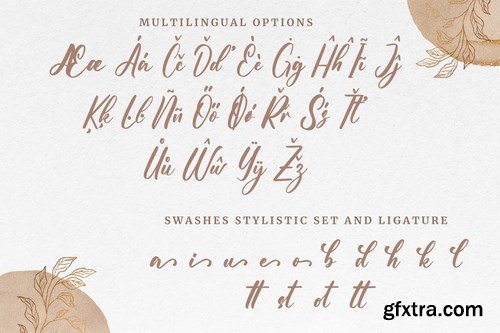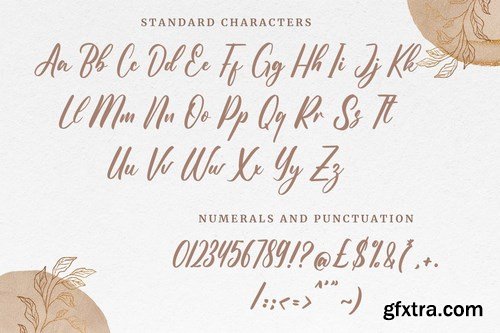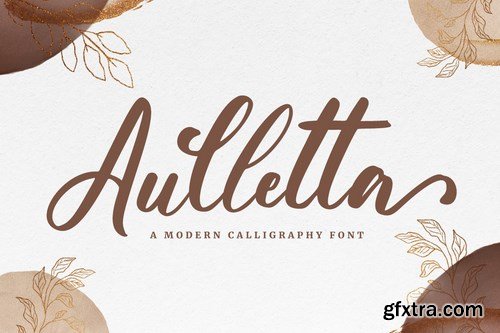
Aulletta is a romantic, cursive and sweet calligraphy typeface with characters that dance along the baseline. It will add a luxury spark to any design project that you wish to create!
Modern Calligraphy Font
Beautiful Swash (Ending tail)
Beautiful Titling (Beginning tail)
Special Ligatures
Multilingual Support